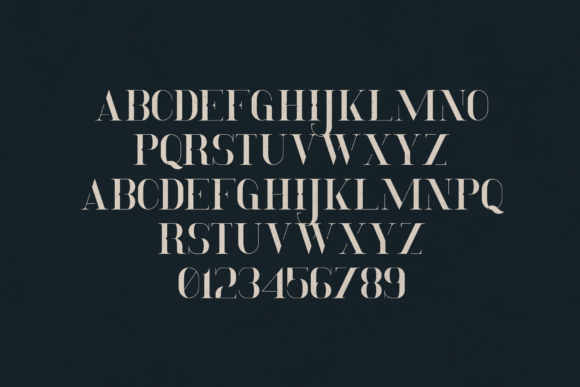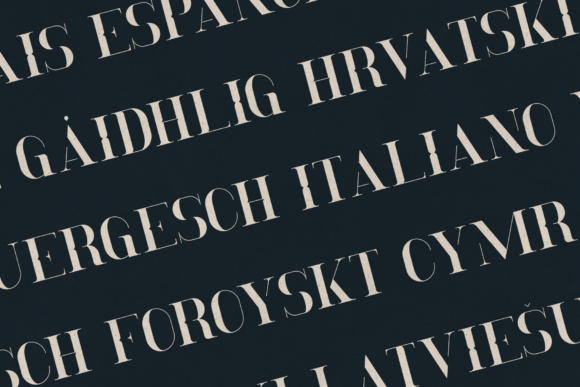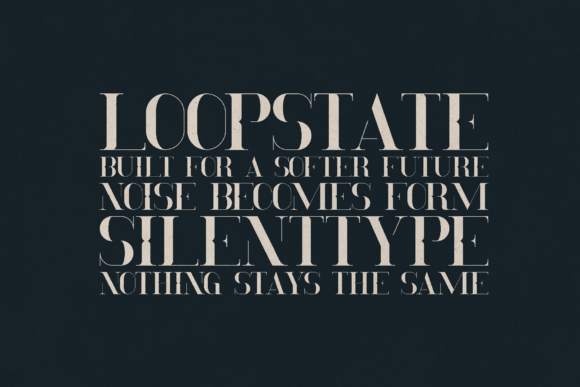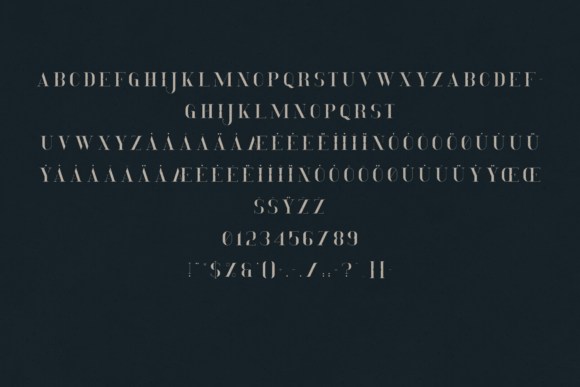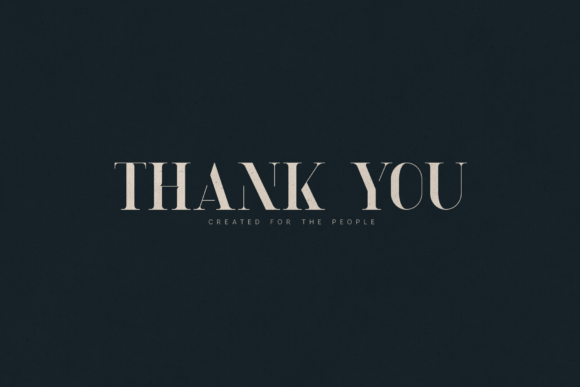
Introduction to Momentus Font
As designers, we’ve all been there – staring at a blank canvas, trying to conjure up the perfect font to elevate our creative project. The right font can make all the difference, transporting our audience to a world of high-end luxury and sophistication. That’s where Momentus Font comes in – a game-changing serif font that’s about to revolutionize the way we think about typography.
With its razor-sharp serifs and dramatic transitions between thick and thin strokes, Momentus Font is a design resource like no other. Whether you’re working on a high-fashion branding project or creating cinematic titles for your next big production, this font is the ultimate choice for designers who want to make a statement.
Key Features of Momentus Font
- High-quality design resource for creative projects, featuring a sleek and modern aesthetic.
- Unique characteristics include a dynamic and energetic feel, making it perfect for headlines and titles.
Honest Review: Momentus Font
I recently stumbled upon the Momentus Font and was impressed by its unique style. As a designer, I’m always on the lookout for high-quality design resources to elevate my creative projects.
Here’s what I like about the Momentus Font: ✨
- Unique, futuristic style that sets it apart from other fonts.
- High-resolution graphics that ensure a crisp and clear appearance on various devices.
- Comes with a transparent background, making it easy to layer and combine with other design elements.
However, there are some limitations to consider: ⚠️
- The font is quite heavy, which may not be suitable for all types of design projects.
- Limited language support, which may be a concern for designers who need to work with multiple languages.
Overall, I think the Momentus Font is a great addition to any designer’s toolkit. Its unique style and high-quality design make it a valuable resource for creative projects. With a bit of caution regarding its limitations, I would definitely recommend it to fellow designers looking for a fresh and modern font.